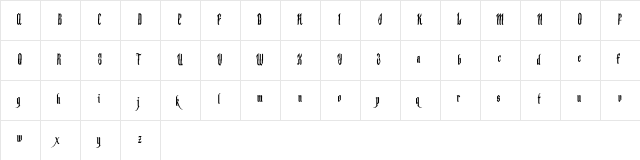
BACKSTAB FULL Regular
| Foundry | Billy Argel |
| Designer | Billy Argel |
Design Context for BACKSTAB FULL Typeface
BACKSTAB FULL is a composed and adaptable typeface that performs quietly and consistently across a wide range of design contexts.